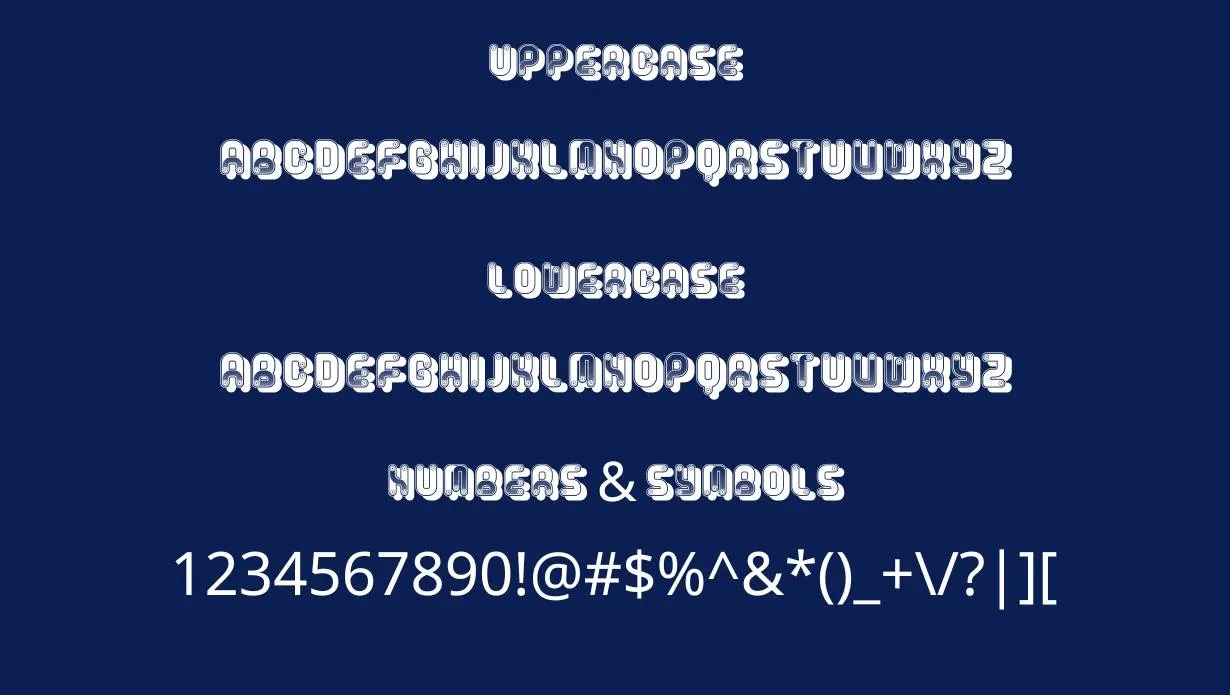
Aroma Font has a playful and decorative design, ideal for creative projects, children’s books, and imaginative branding.
Its whimsical and unique letterforms add a sense of fun and creativity to your designs.
Aroma Font Family
| Name | Aroma Font |
| Designer | Laura Pol |